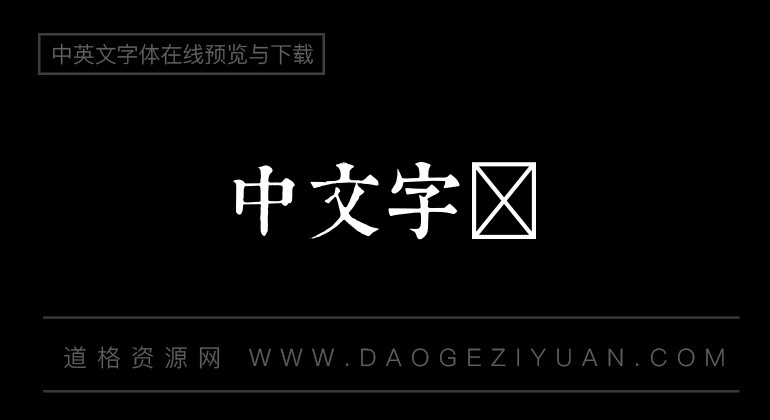
Kangxi dictionary style is a typeface of Chinese characters designed by Emperor Kangxi of the Qing Dynasty based on the "Kangxi Dictionary" and designed by the official font designer of the Qing Dynasty. It is also called Kangxi dictionary style, Kangti, and Qingwen style. It is the most representative type of Chinese traditional Chinese character fonts, and is known as "the classic of Chinese calligraphy". The Kangxi dictionary font has a fresh design and is relatively regular. Its shape is relatively uniform, the strokes of the characters are relatively clear, and the strokes are uniform in thickness and strong in unity. It is the most representative font in Chinese calligraphy.Content introduction
Kangxi dictionary style is a very good handwriting art font, with a good visual sense, suitable for cultural propaganda design, commercial brand advertising and product packaging design and personalized text typesetting and other more scenes.